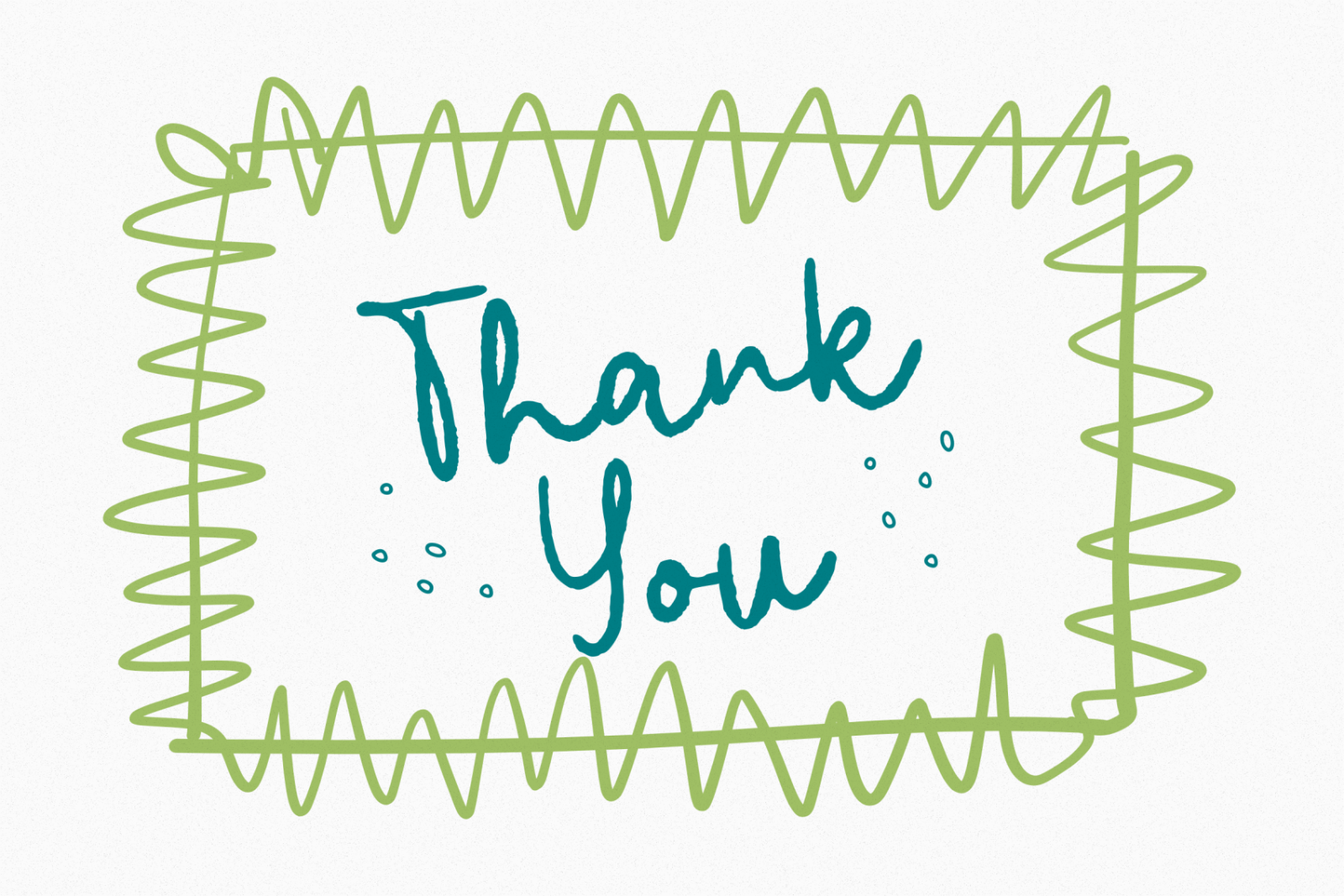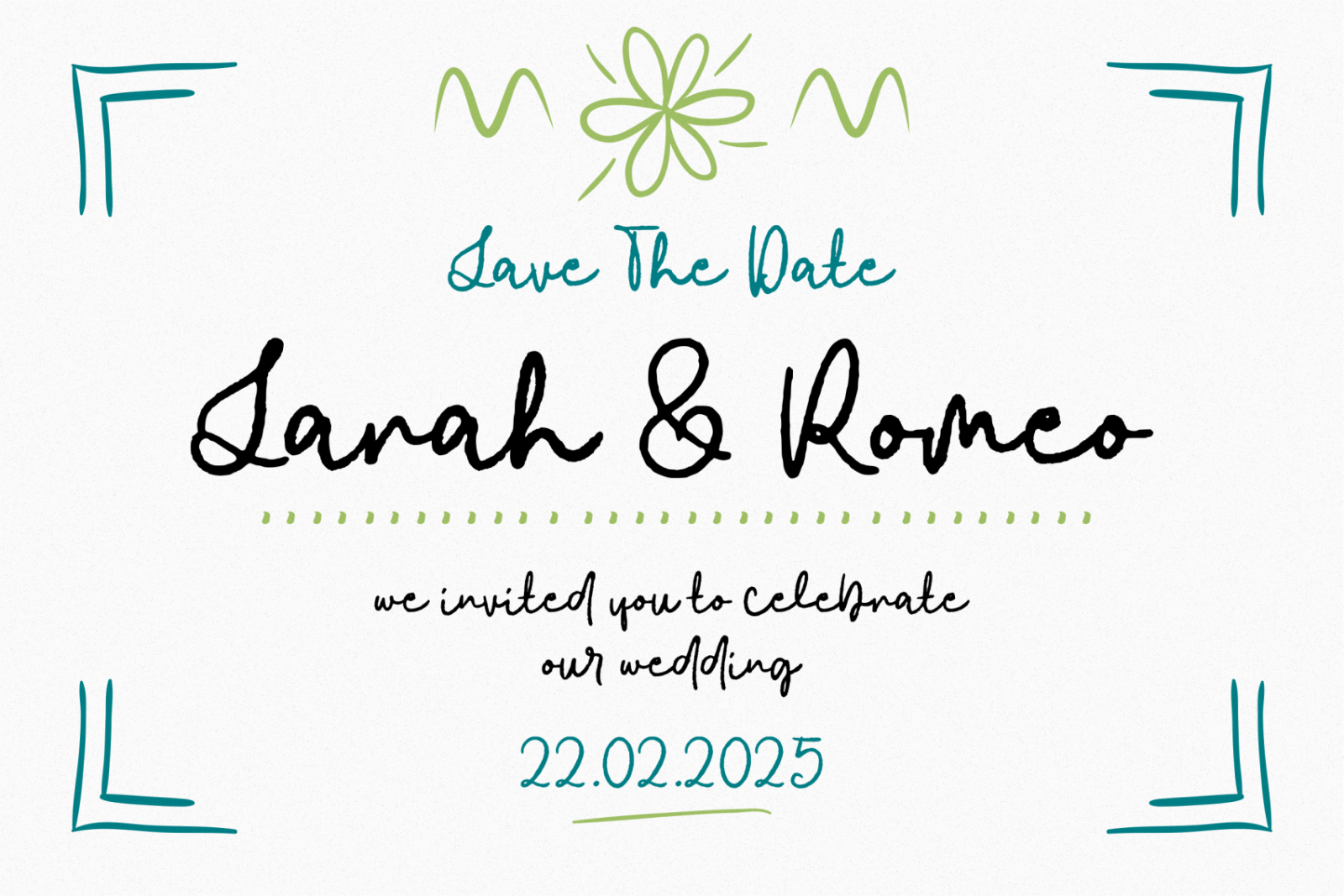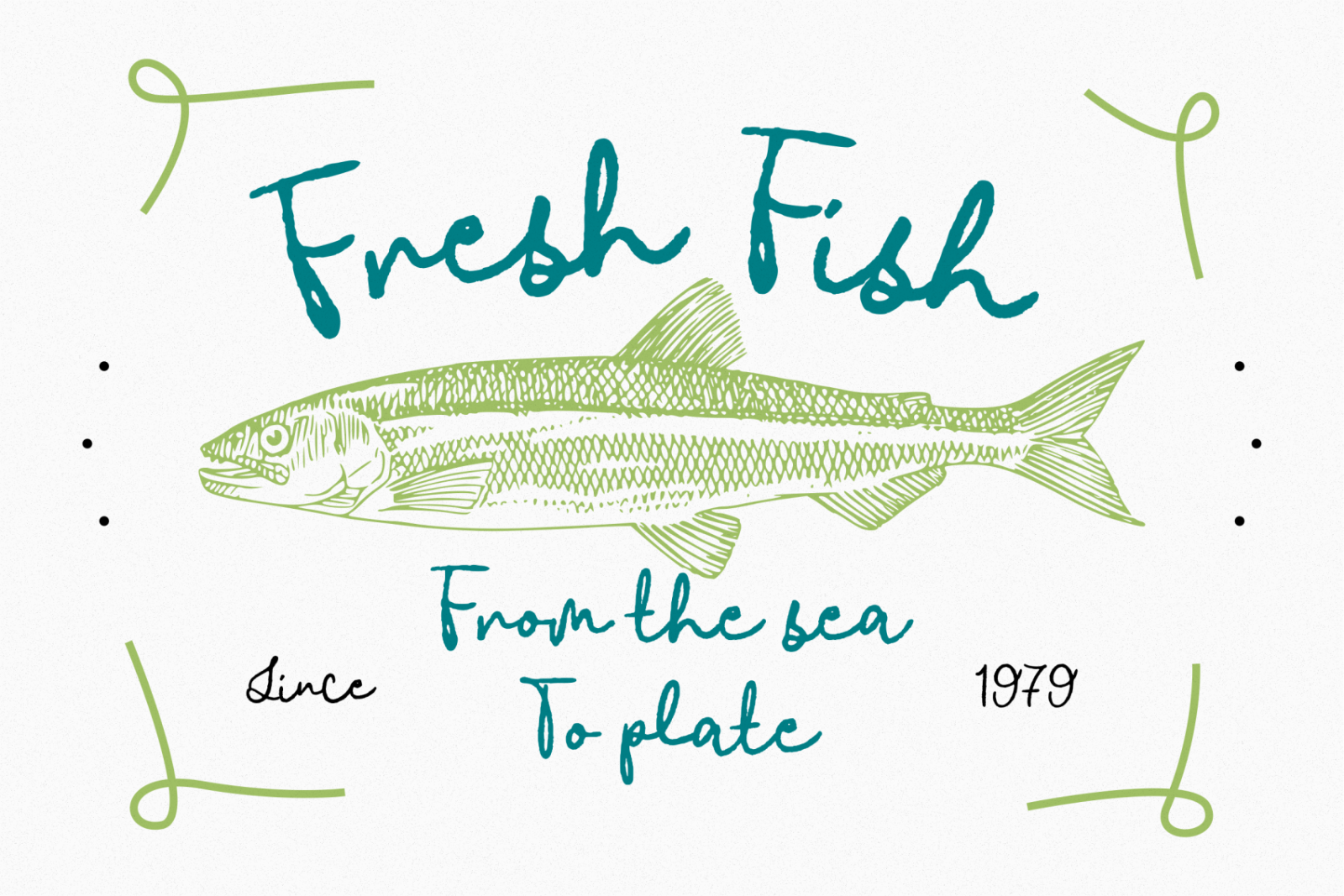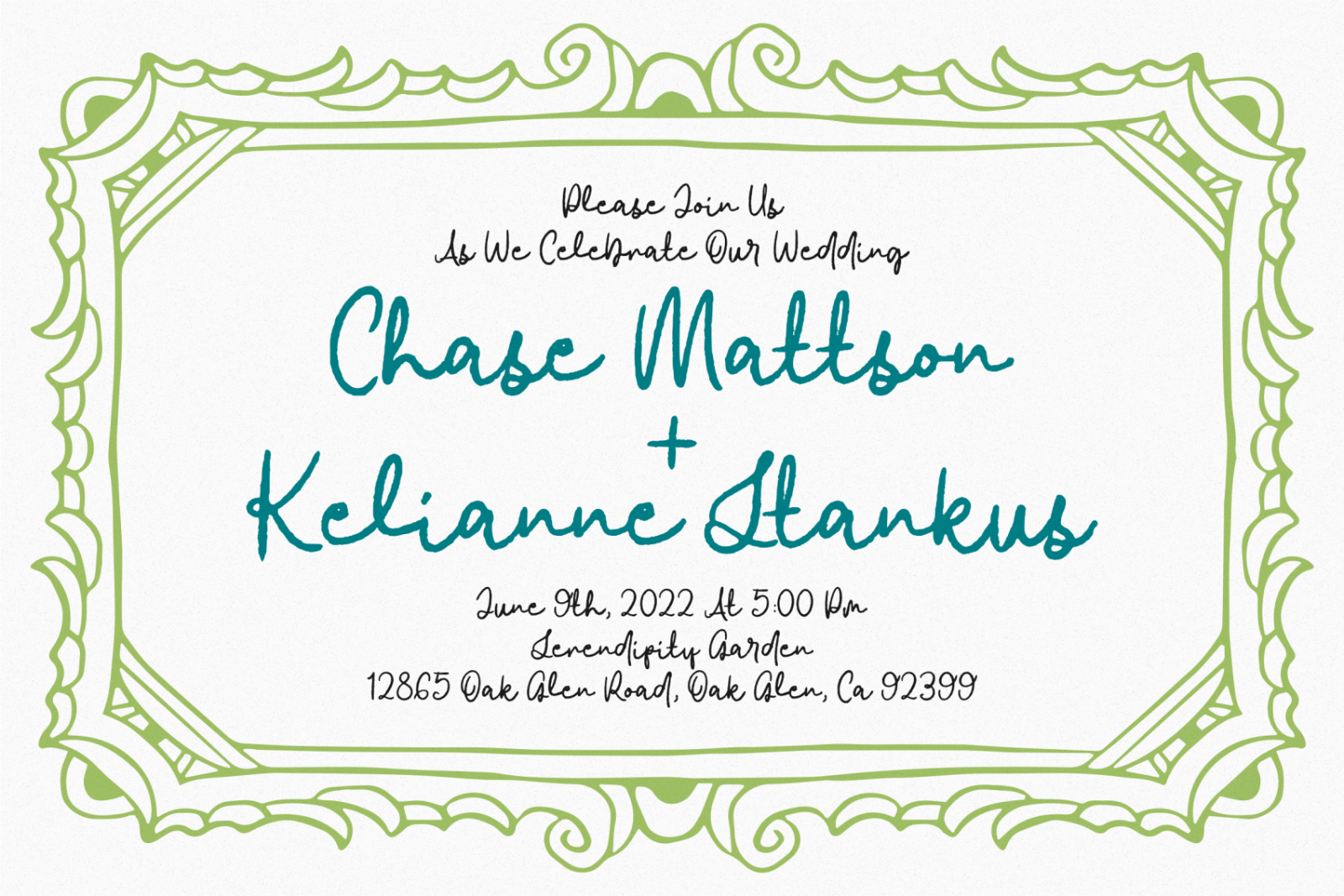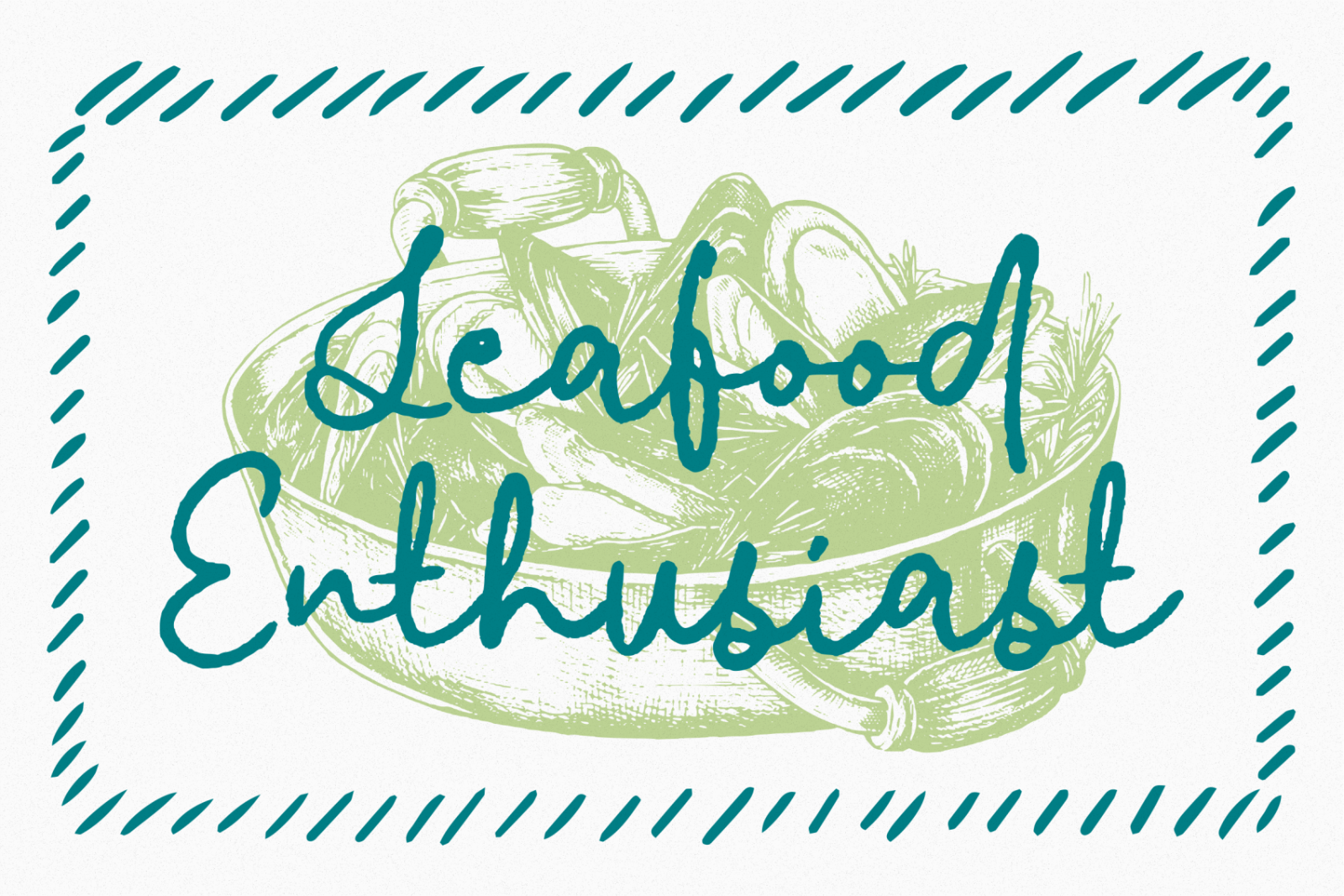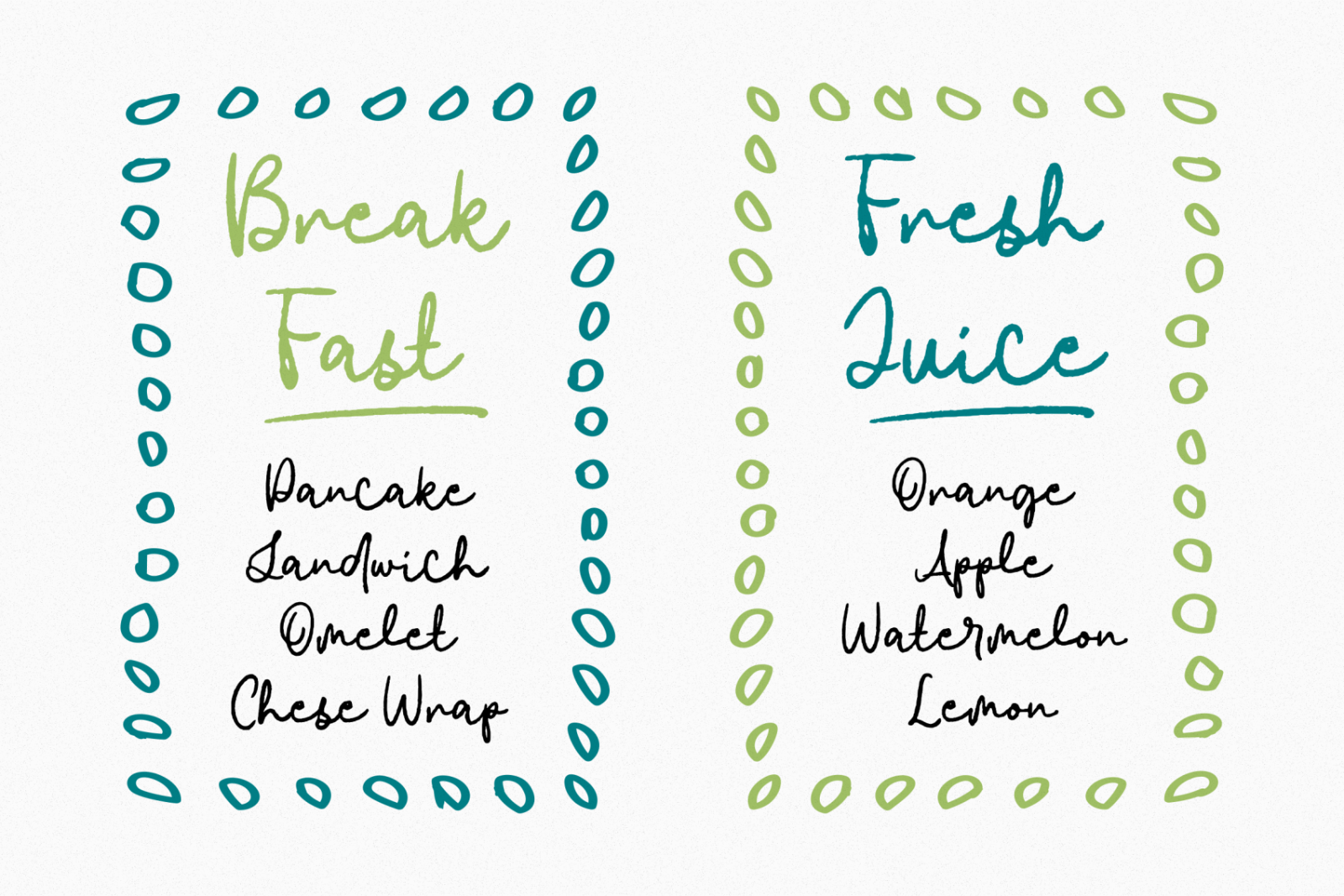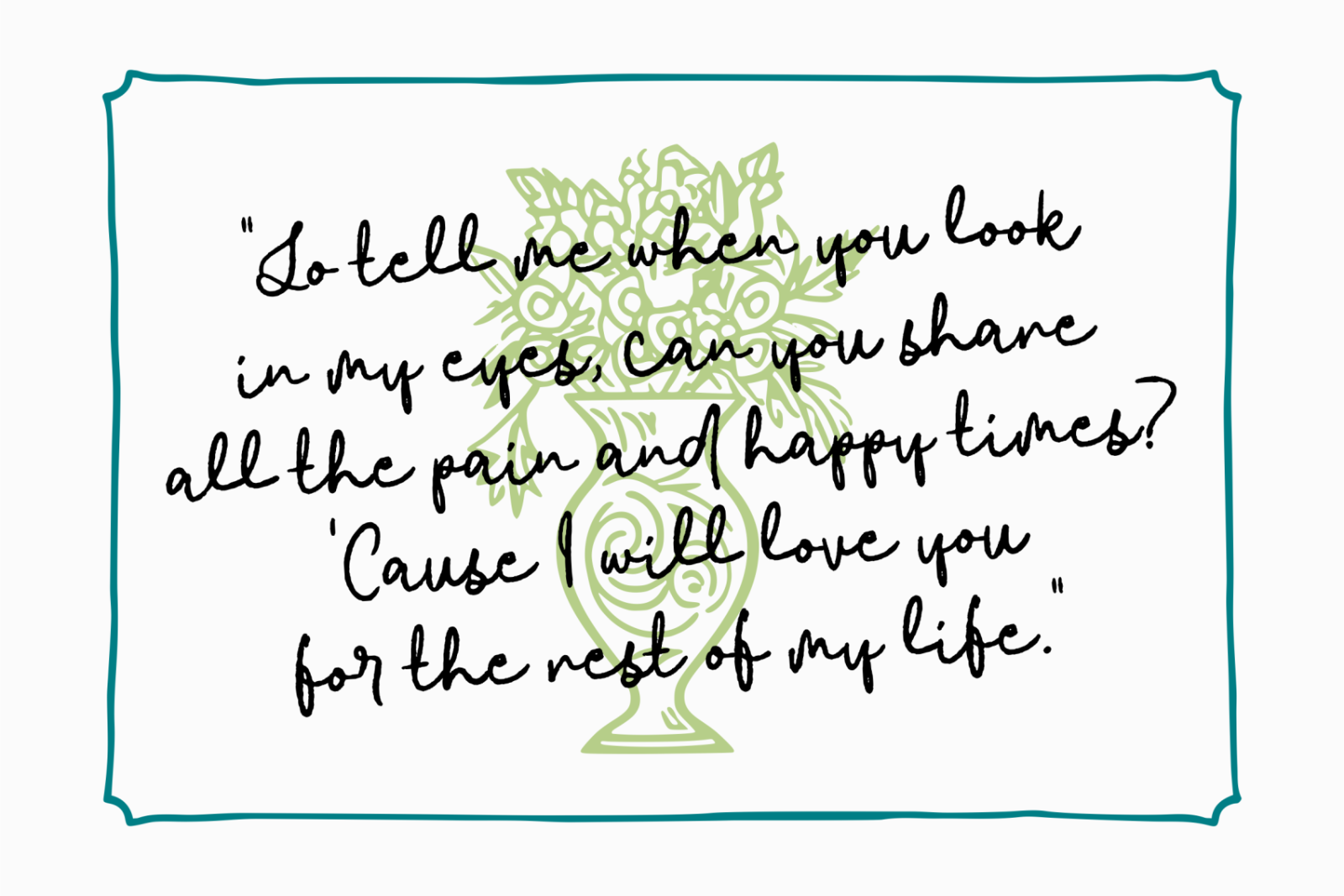
Introducing Blowing Trumpet - a mesmerizing handwritten script font meticulously brought to life by Anxietype Foundry. Embellished with a whimsical charm, this font truly shines when used for crafting greeting cards, penning down heart-felt quotes, creating inviting menu designs, and designing alluring wedding invitations. It's perfect for artists looking to add a touch of magic and individuality to lyric designs and magazine layouts or those seeking to elevate their social media posts and headers. Experience the unique allure of Blowing Trumpet and let your creativity flow like never before.
• Standart Glyphs
• Numberial and Functional
• come with Special Underline Glyphs
• Ligature